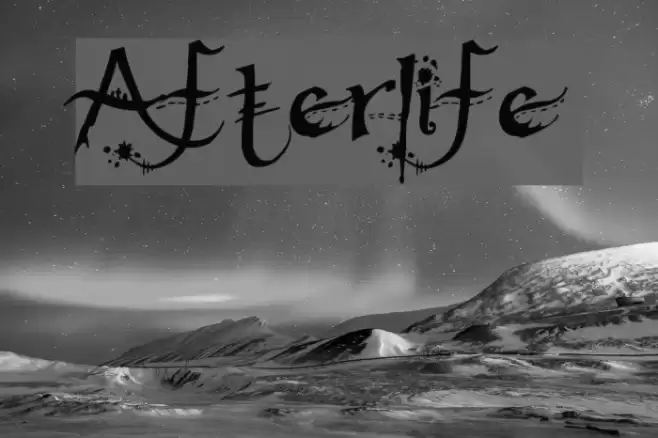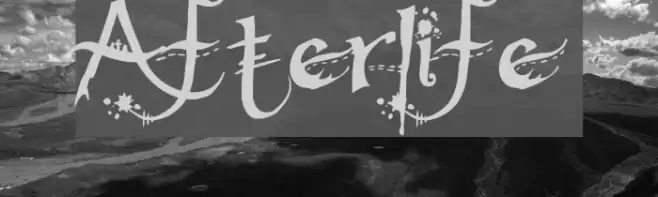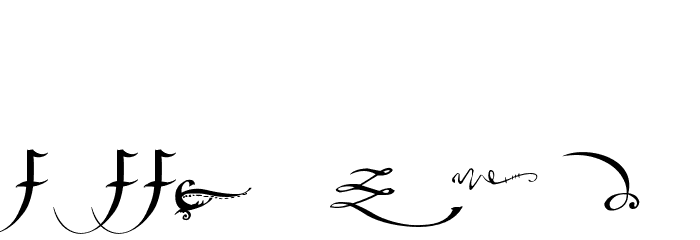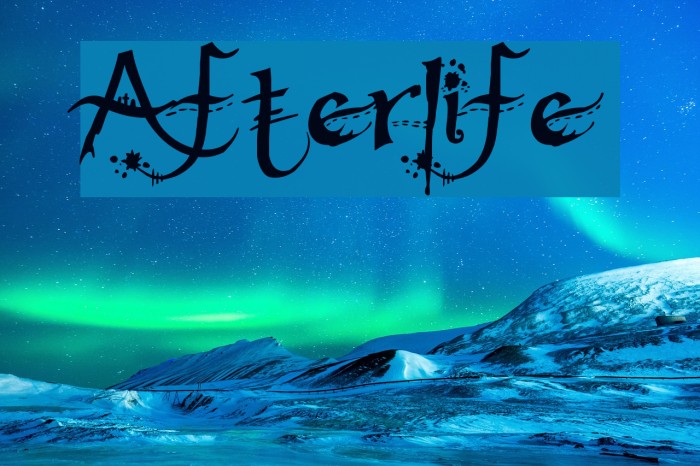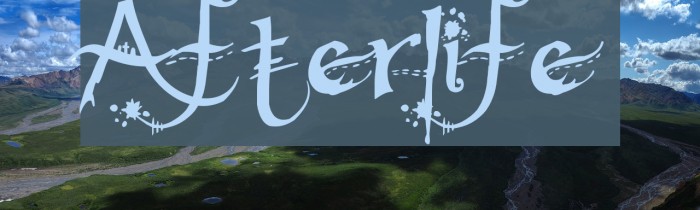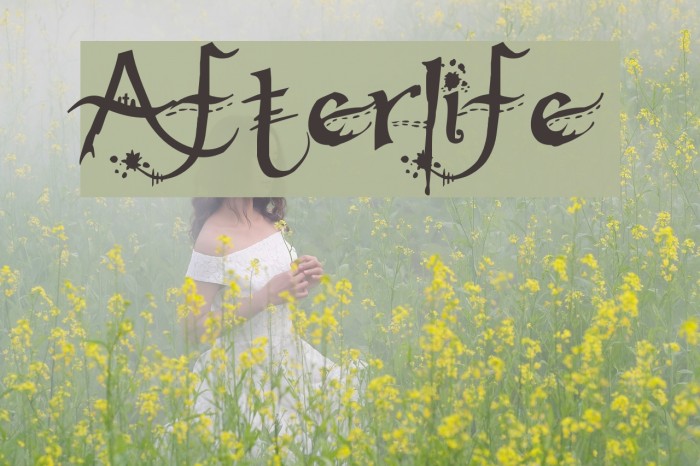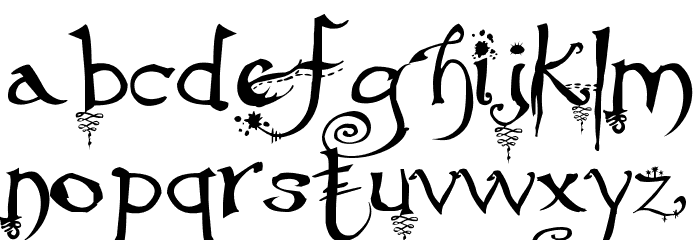
Afterlife Font
Afterlife Description
This font is a highly decorative and ornate typeface, featuring intricate embellishments and flourishes that give it a gothic and whimsical appearance. Each character is adorned with unique, elaborate details, such as swirls, spikes, and stars, creating a visually striking and artistic style. The uppercase letters are particularly bold and dramatic, while the lowercase letters maintain a consistent level of ornamentation. The font's design is reminiscent of fantasy or horror themes, making it ideal for projects that require a touch of mystery or enchantment. The special characters continue the theme with equally elaborate designs, ensuring a cohesive look throughout.
An ornate, gothic-style font with intricate embellishments and whimsical details from Uncategorized fonts.
- Proposed Projects: Ideal for fantasy book covers, Halloween event posters, gothic-themed invitations, or any project requiring a dramatic and artistic touch.
- Overall Style: Gothic, Whimsical, Decorative